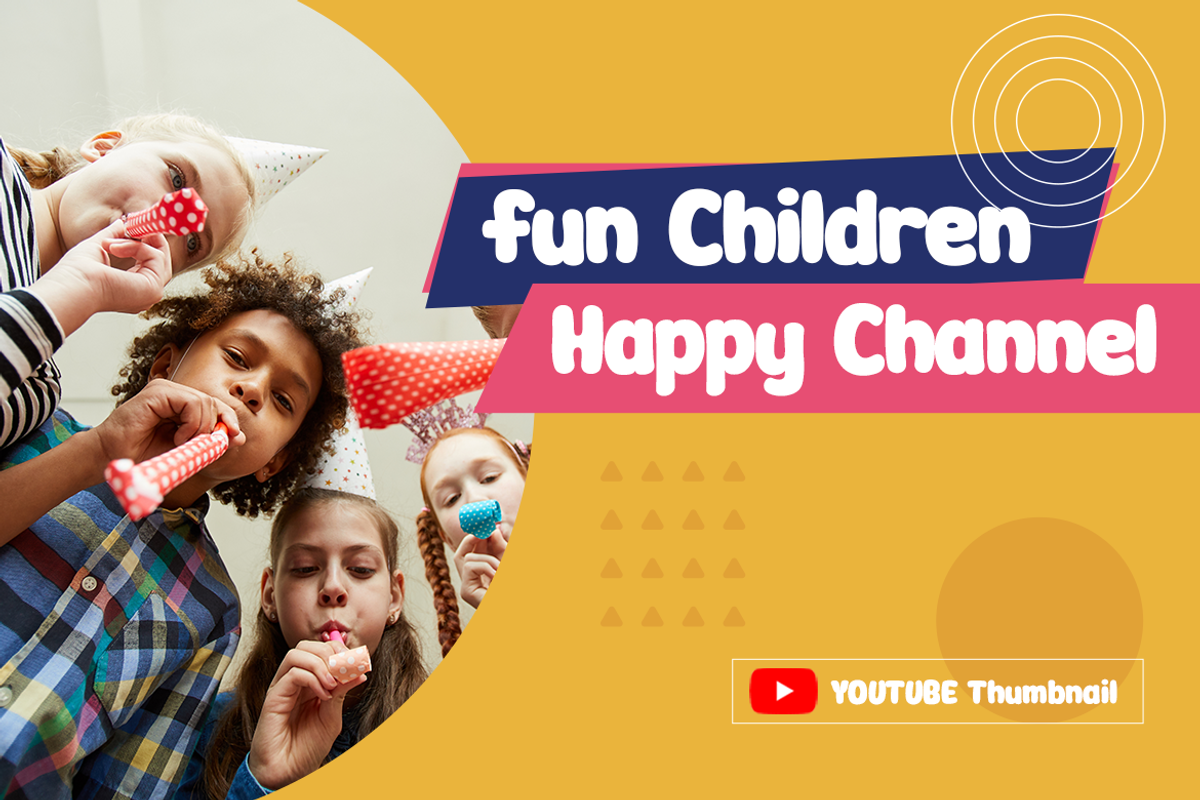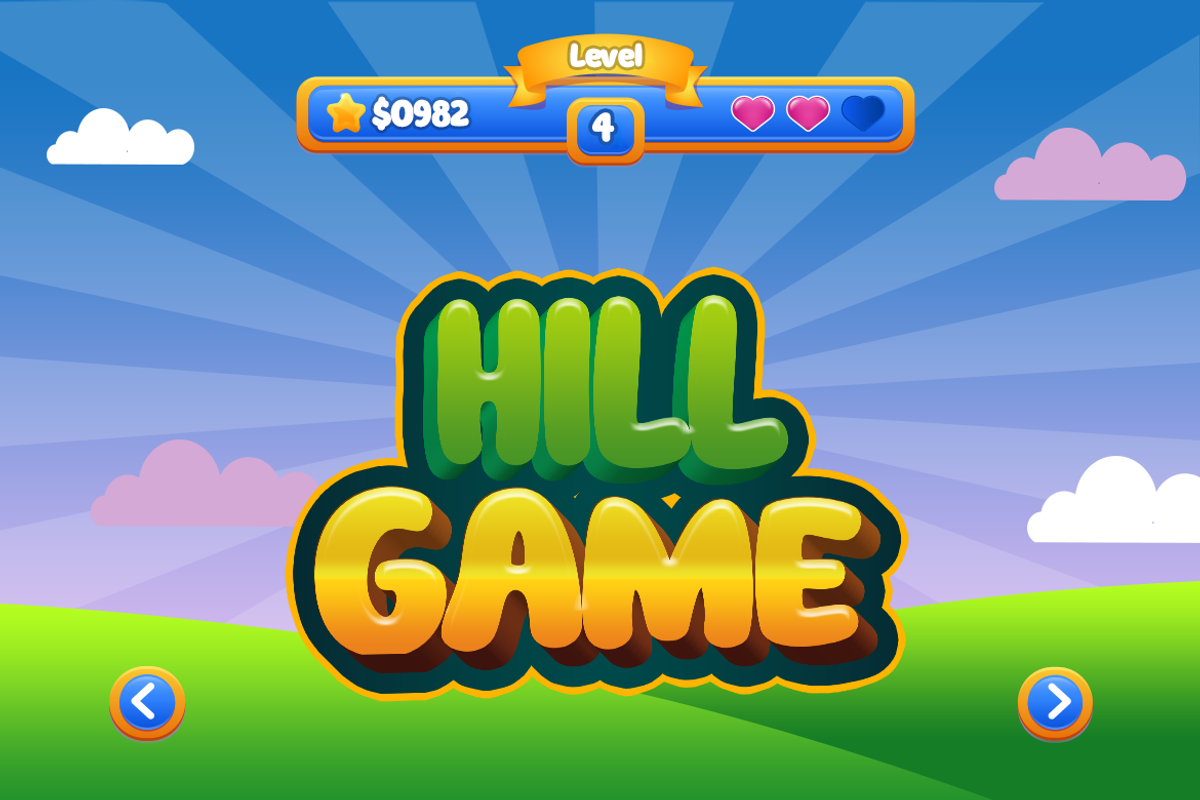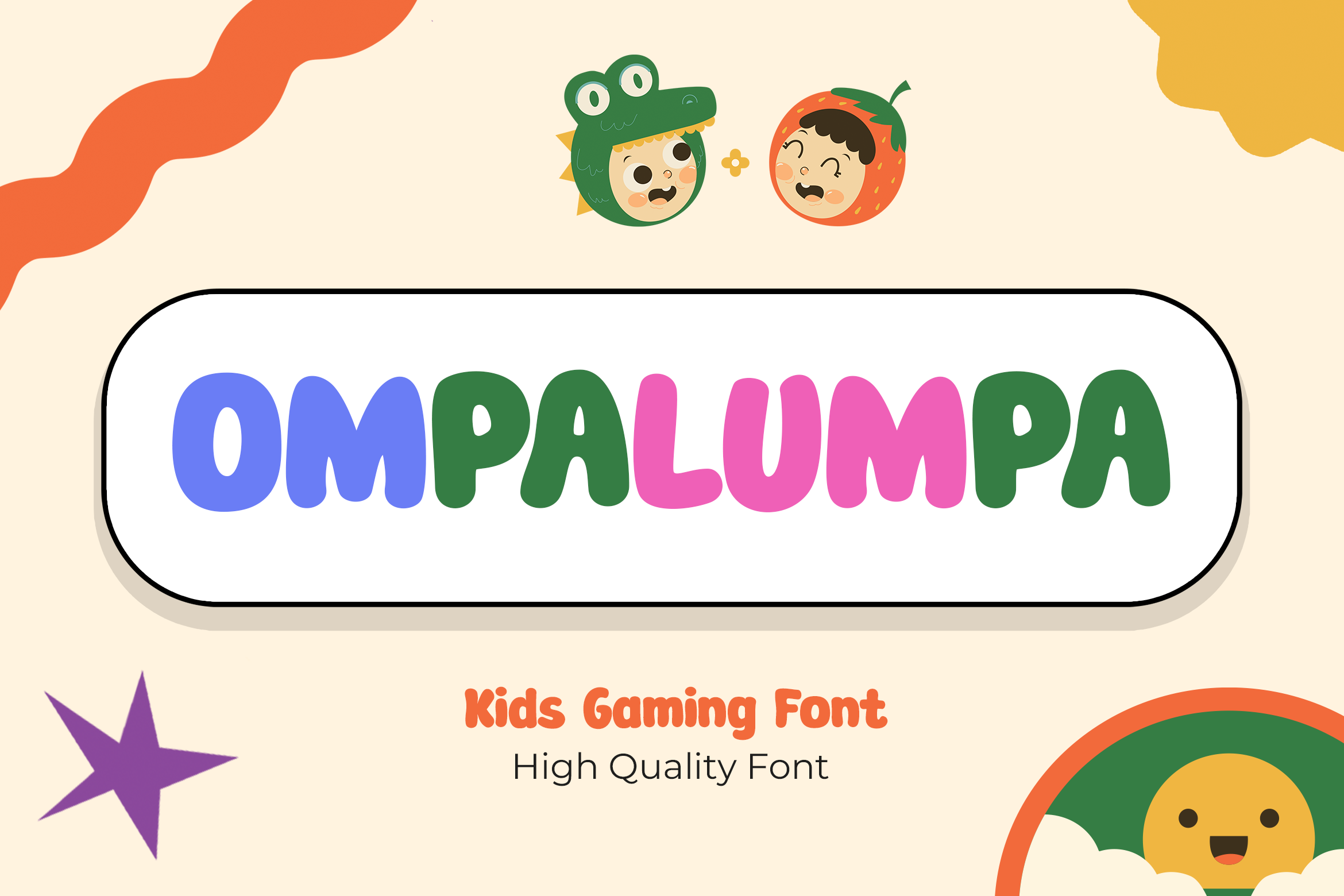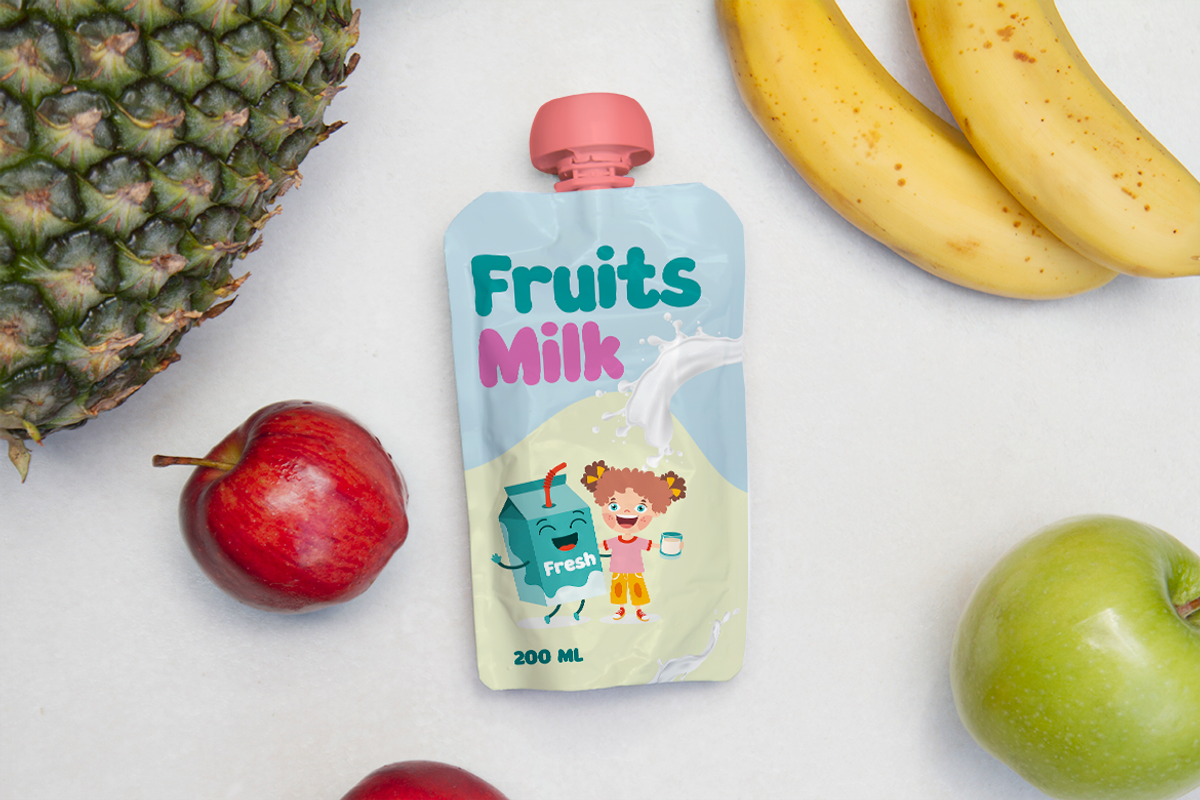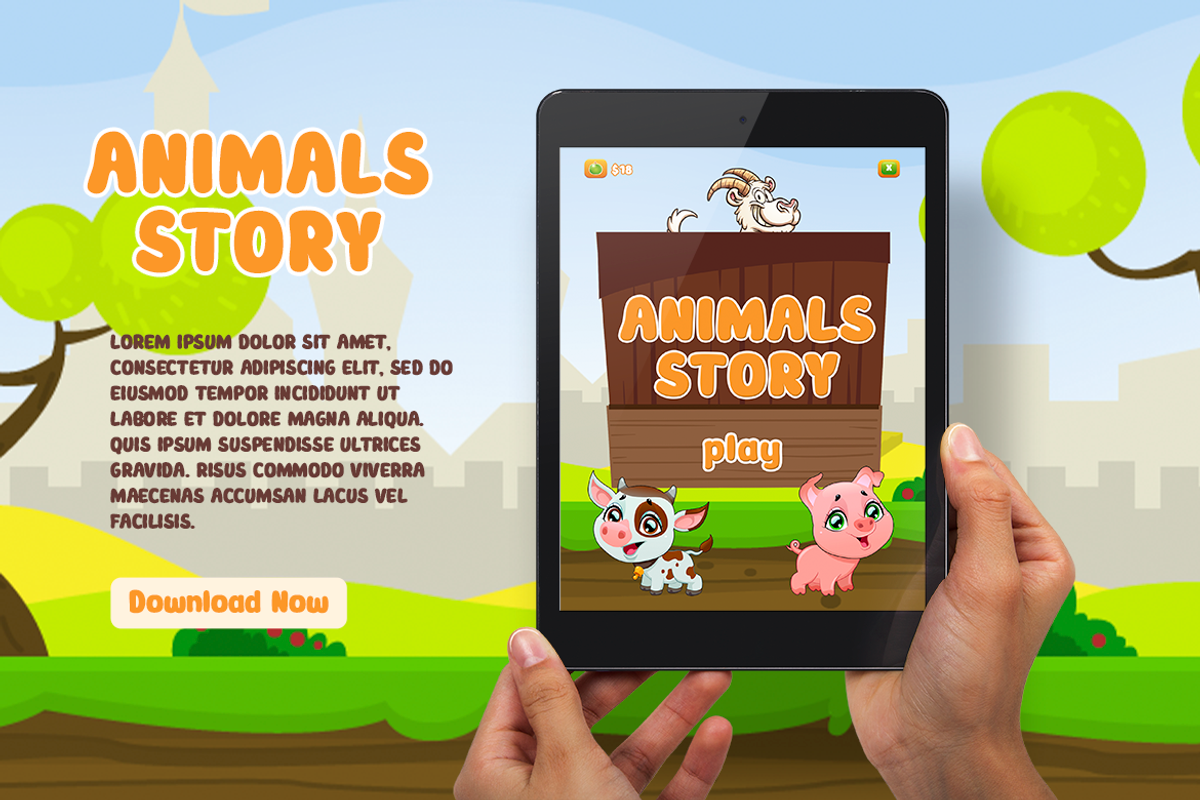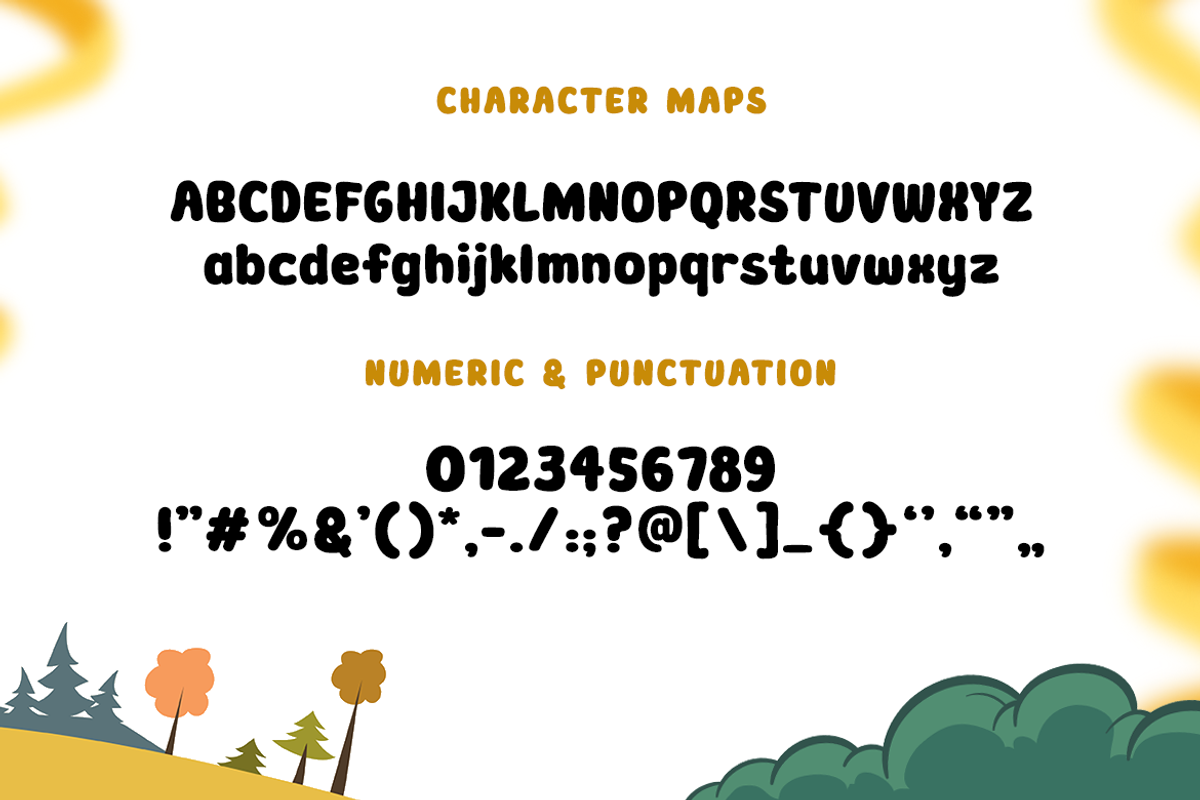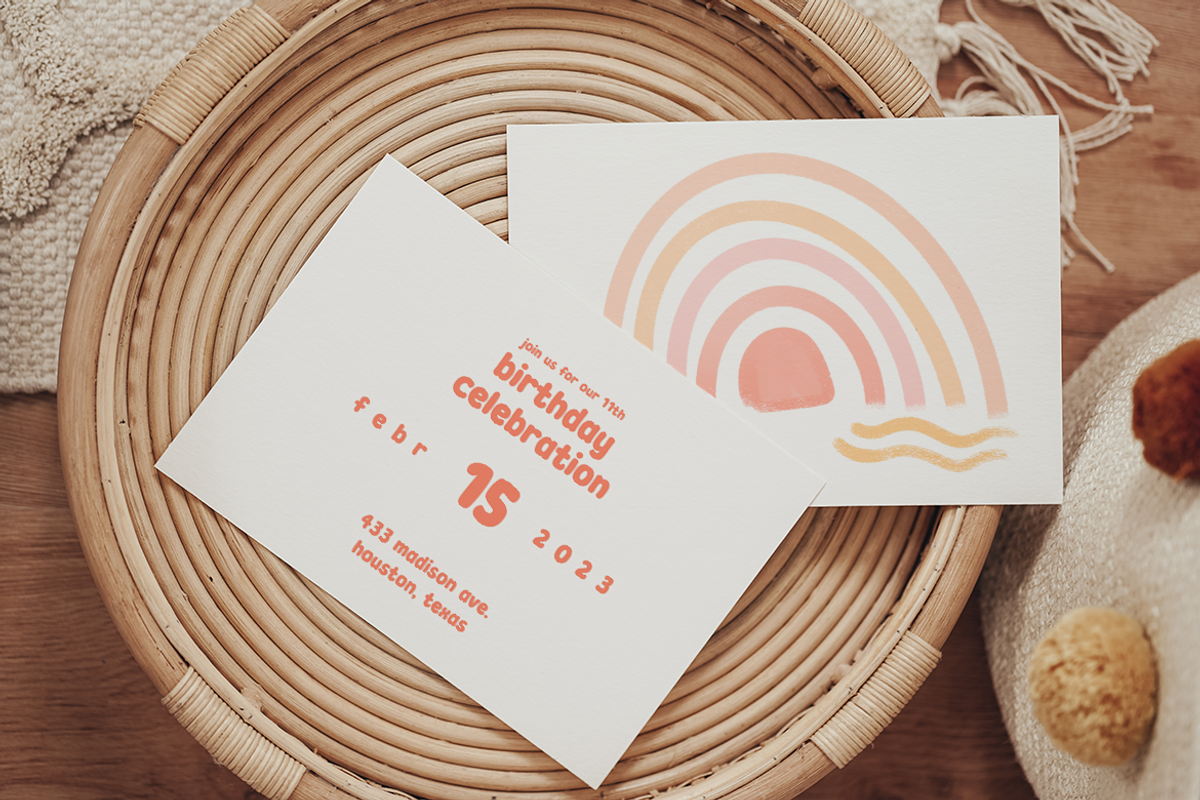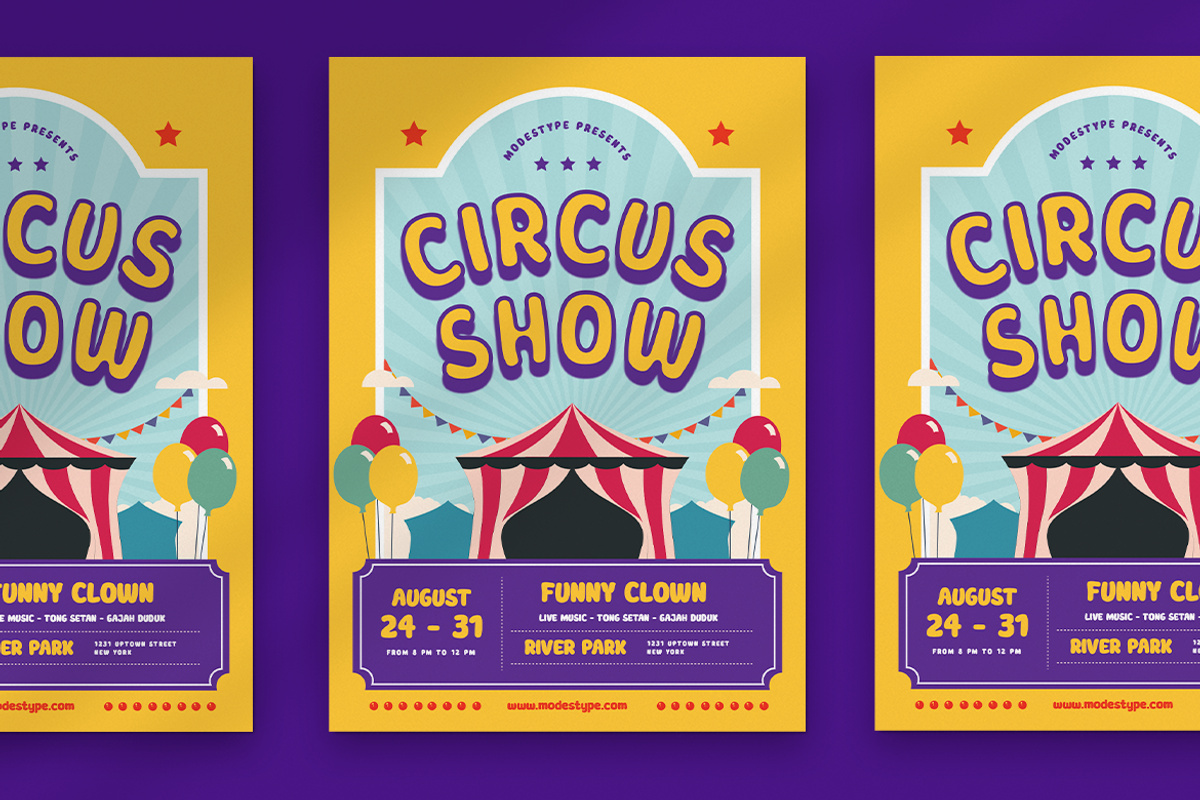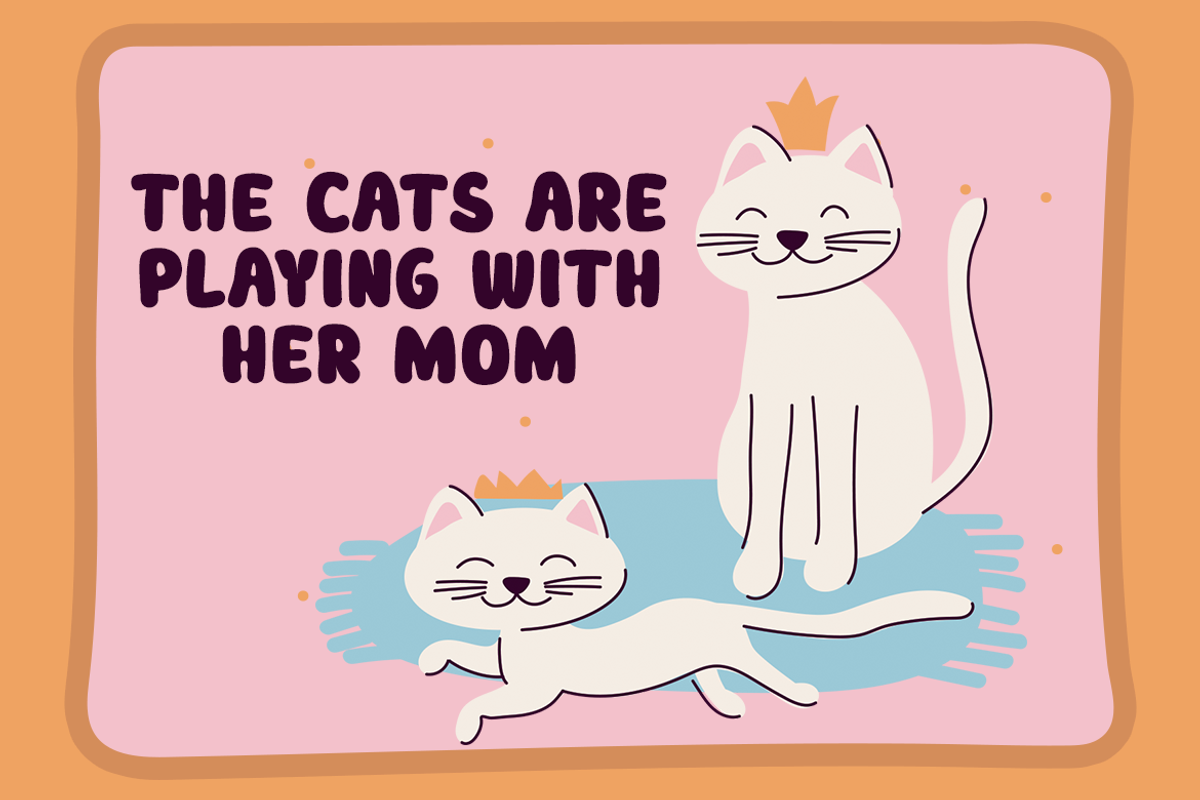
Ompalumpa – Kids Gaming Font
Looking for a playful and fun font that’s perfect for kids? Look no further than Ompalumpa! This Comic Font is specially designed to add a touch of cuteness and humor to your project. Its display style makes it perfect for logos, posters, and other creative endeavors. And with its Sans Serif style, it’s legible and easy to read, making it a great choice for school projects.
Ompalumpa is not just any Gaming Font, it’s a unique and engaging one that will catch your audience’s attention. It comes with plenty of nature foliage and floral, giving it an organic and natural style that’s perfect for branding on Instagram and YouTube. Whether you’re designing a game or creating content for social media, Ompalumpa’s Funny Font is sure to make your work stand out.
So if you’re looking for a versatile and cute font that’s perfect for kids, Ompalumpa is the one for you! With its Movie Font design, it’s perfect for creating posters, flyers, and other promotional materials. And with its playful and fun design, it’s sure to bring a smile to anyone’s face. Try it today and see the difference it can make in your work!